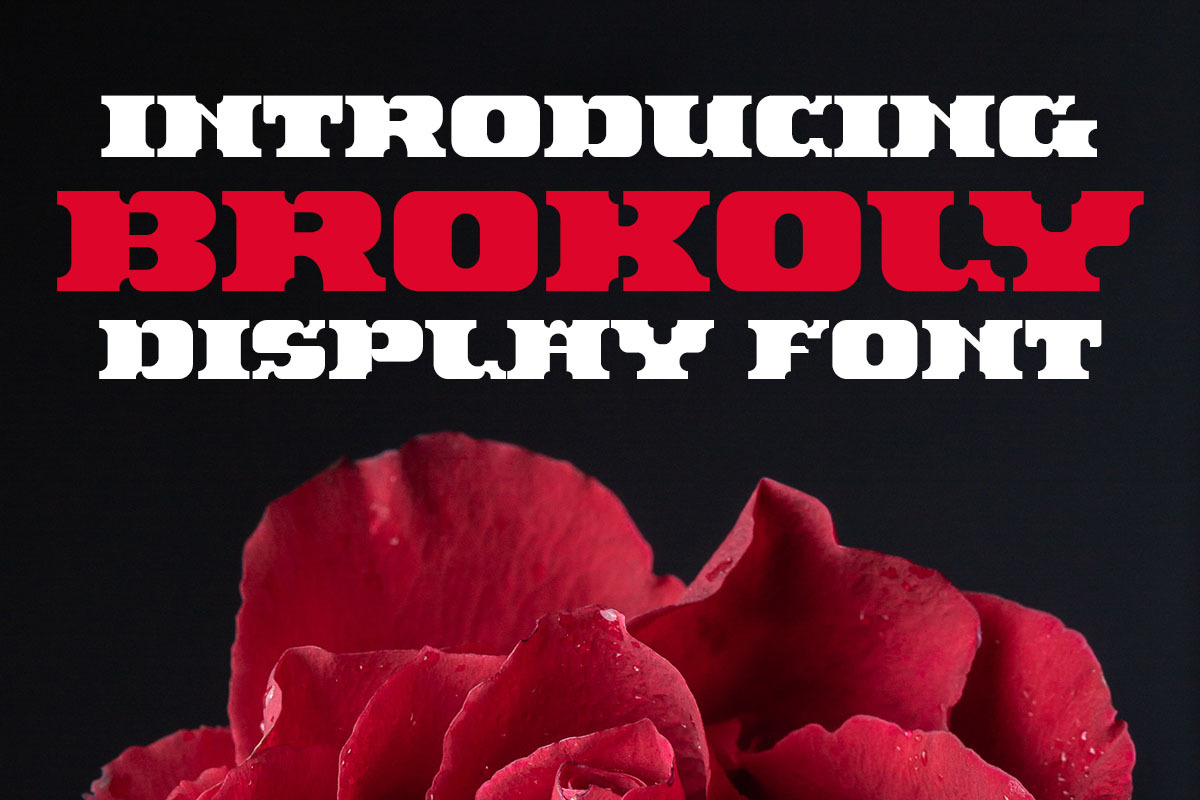
Brokoly Display Font
Brokoly font is our new item that suitable for your Posters.
Great for Logo, Poster, Sticker, Jersey, Invitation Card, Brochure, etc.